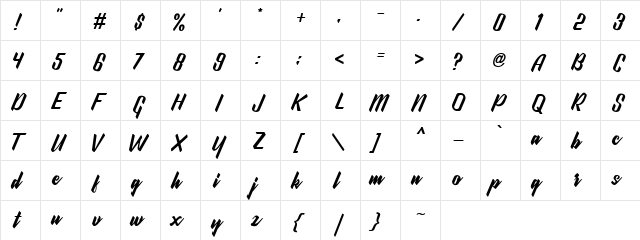
Wonder Stark DEMO Regular
Design Context for Wonder Stark DEMO Typeface
Wonder Stark DEMO is a composed and adaptable typeface that performs quietly and consistently across a wide range of design contexts.